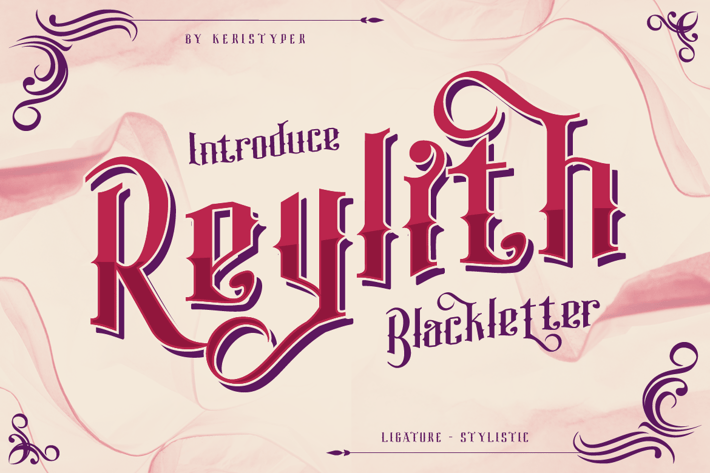
Reylith Font
introduce Reylith fonts, a typeface inspired by tattoo letters. This font is good for logo design, Social media, Movie Titles, Books Titles, short text even long text letters, and good for your secondary text font with sans or serif.
Standard Uppercase & Lowercase
Multilingual : ä ö ü Ä Ö Ü ß ¿ ¡
Alternate & Ligature